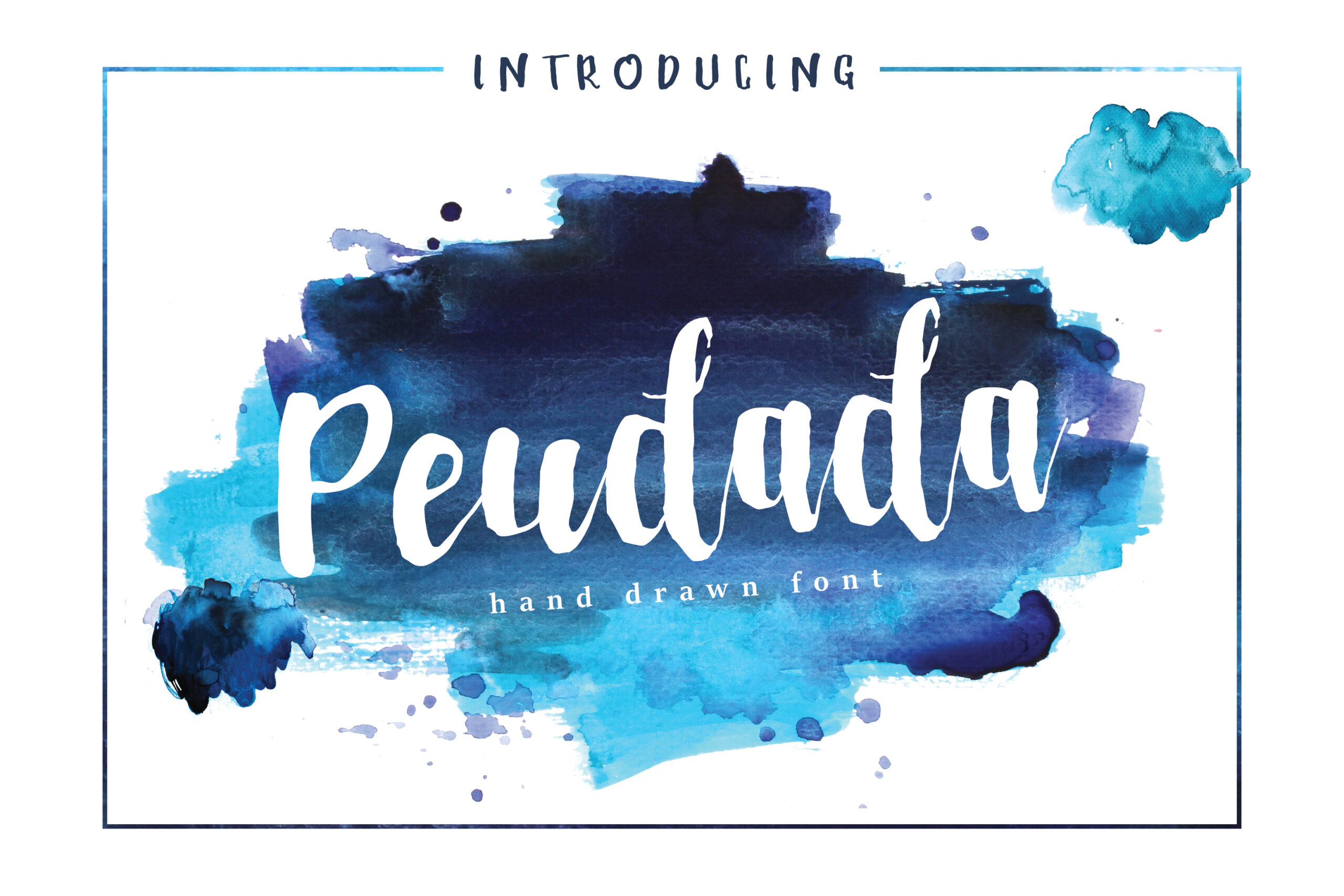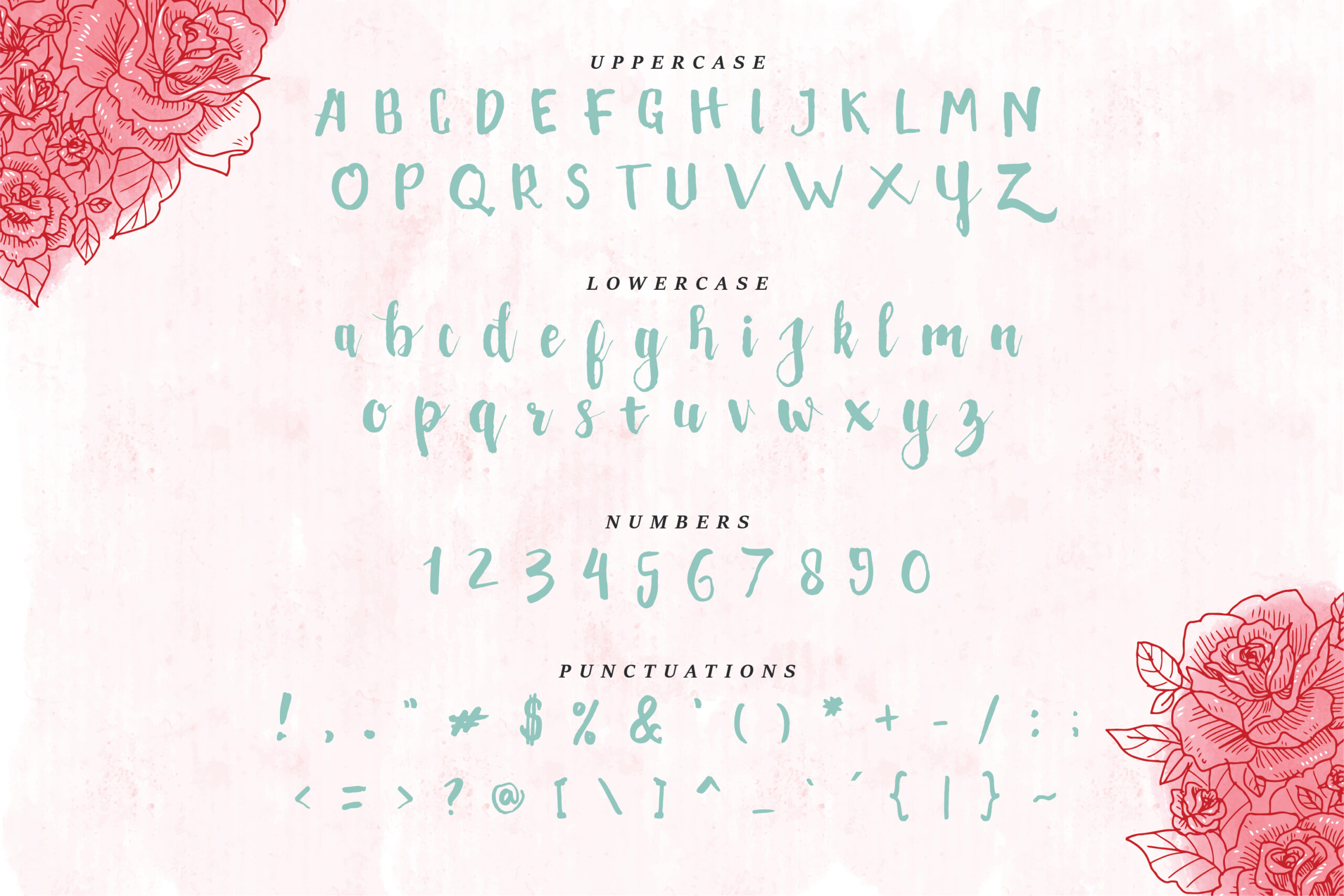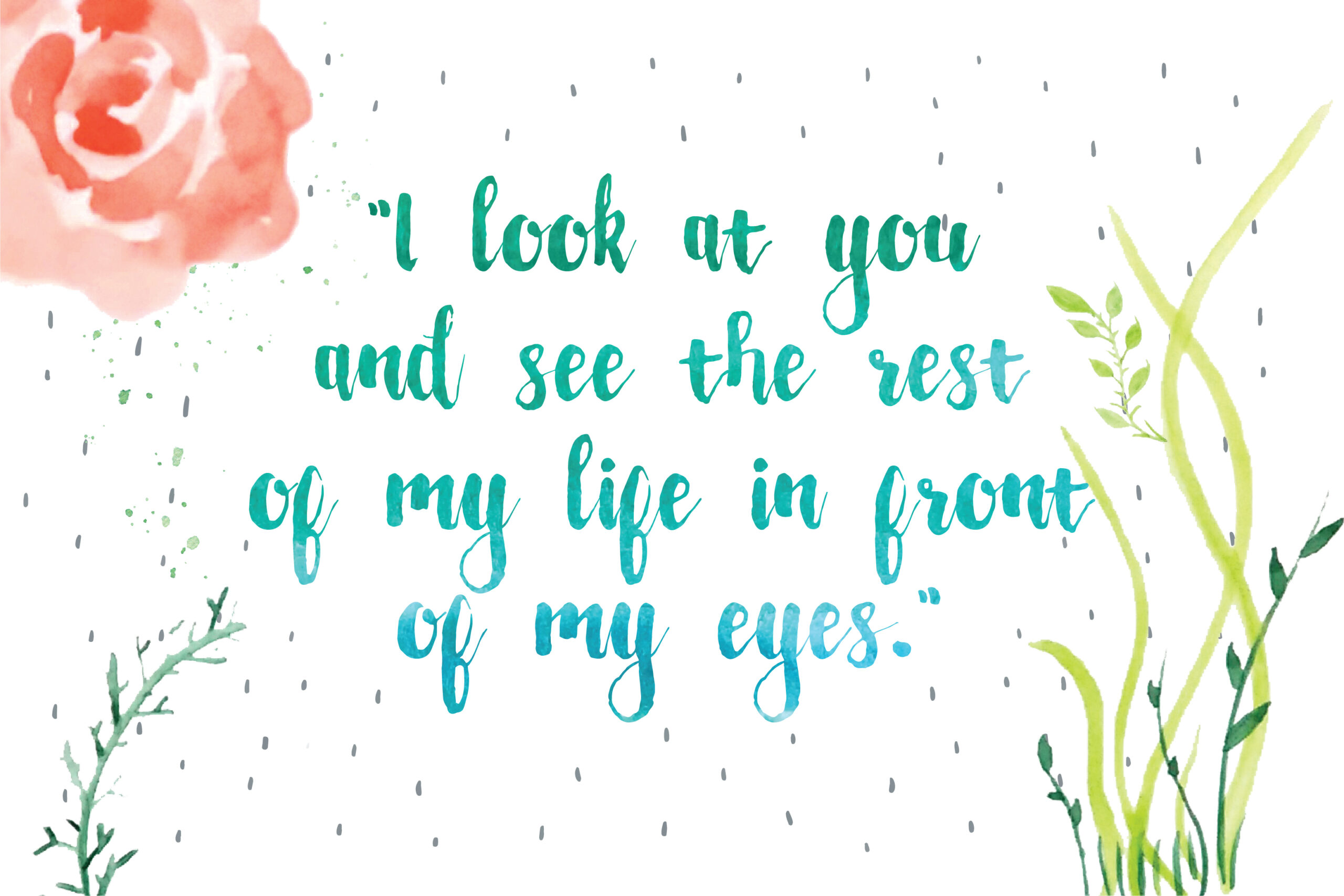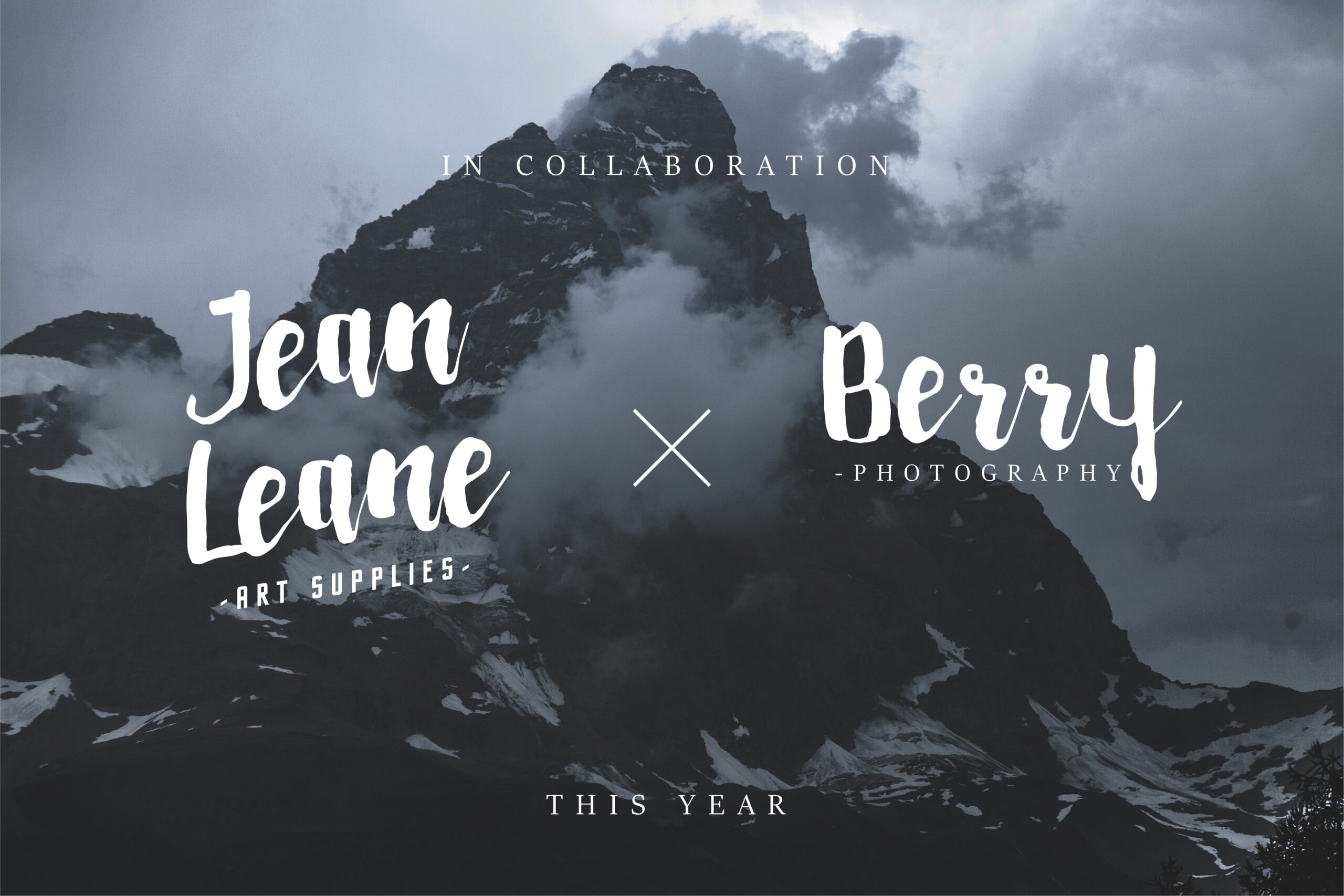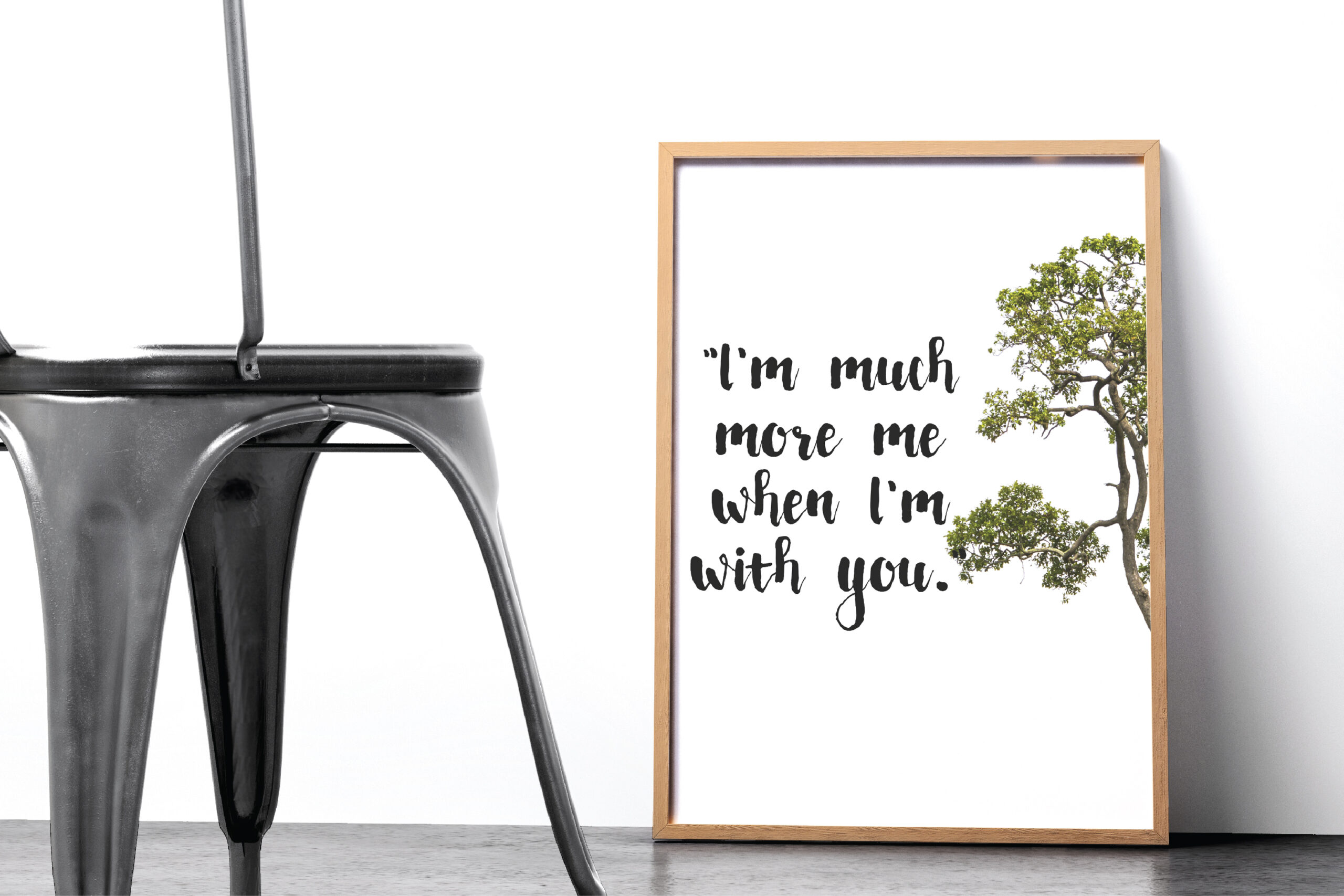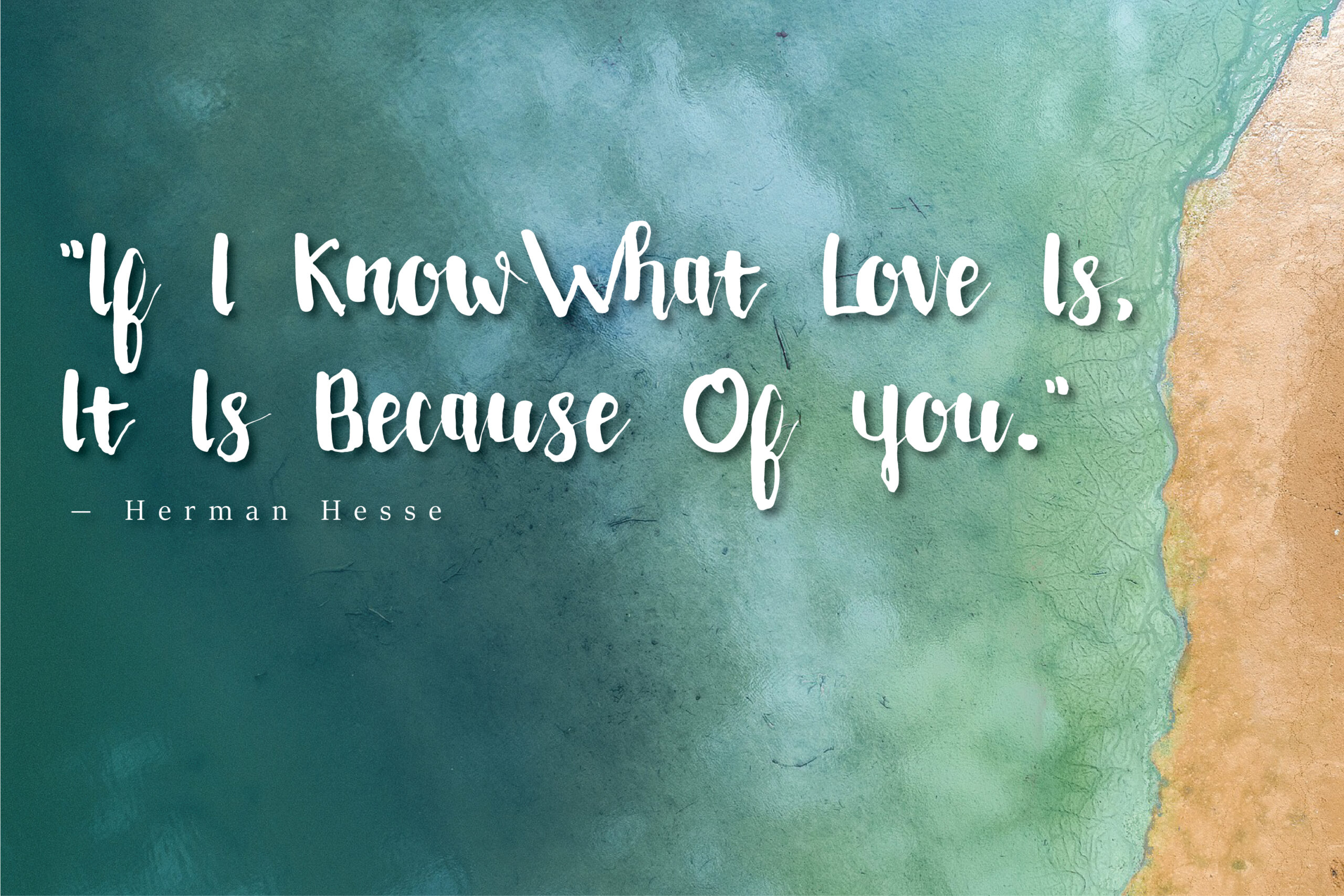
Peudada Font
About Peudada Font
Peudada is a wonderfully crafted handbrushed font. This script looks wonderful in trendy designs, and is also extremely well suited to classic and modern styles.